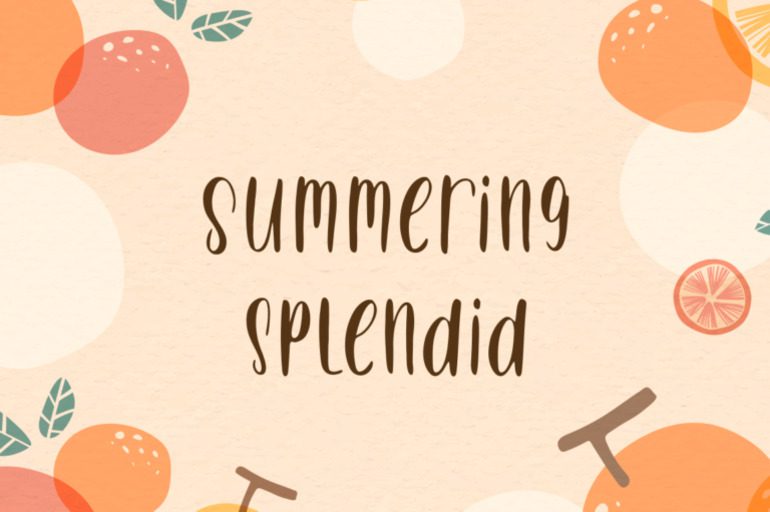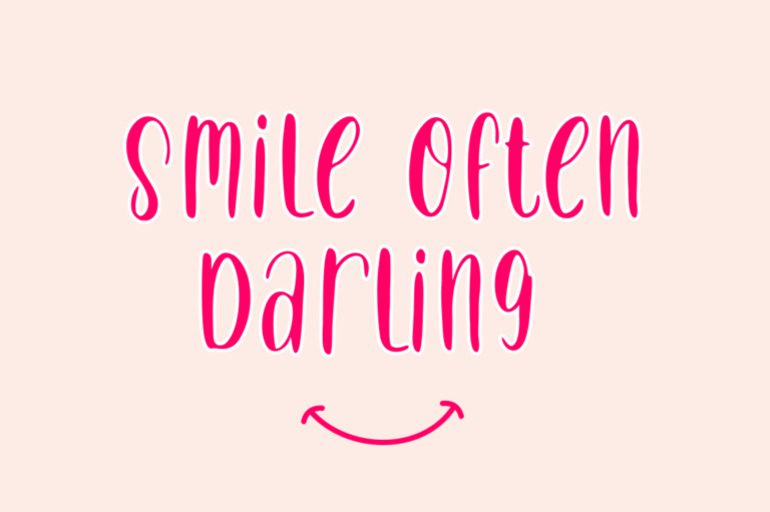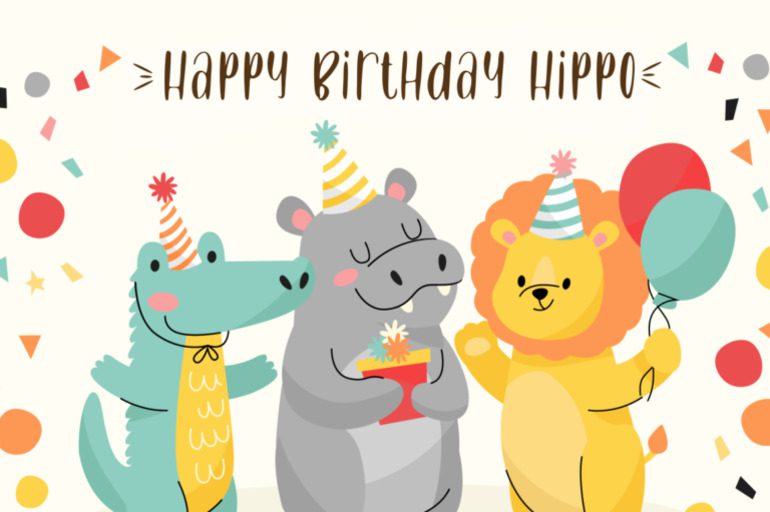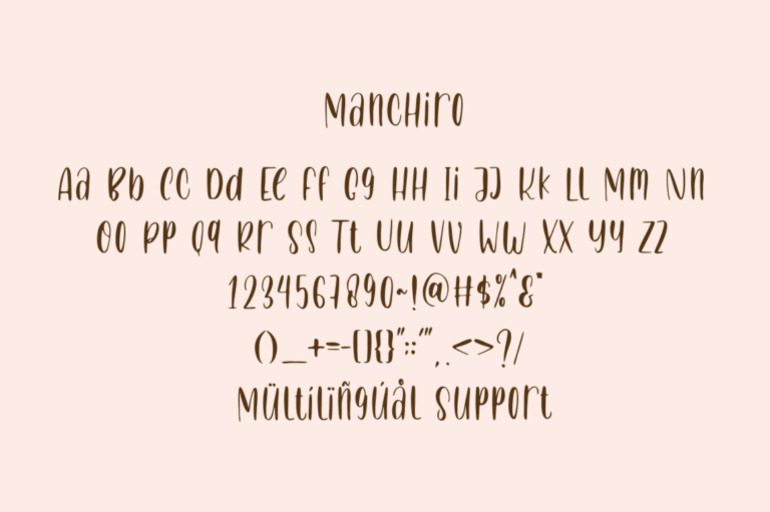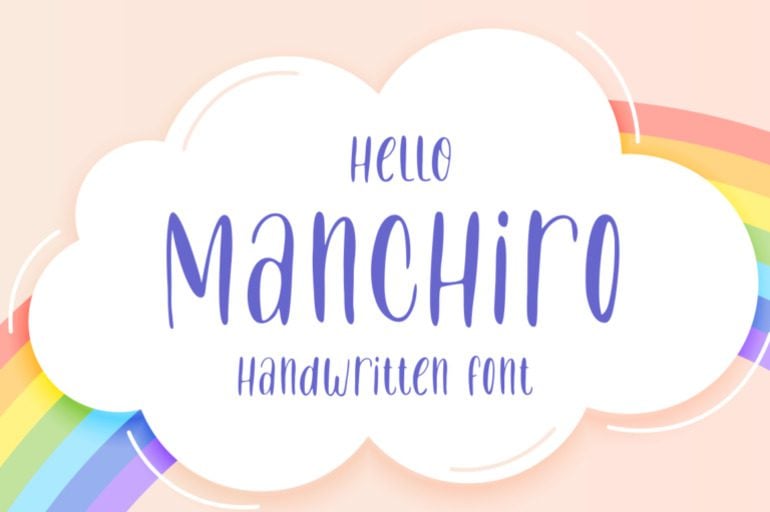
Manchiro Font
Manchiro, a versatile handwritten font with a modern and minimalist aesthetic. Its clean lines and geometric shapes create a sleek and sophisticated look. Perfect for branding, website design, and print materials. Experience the timeless elegance of Manchiro.